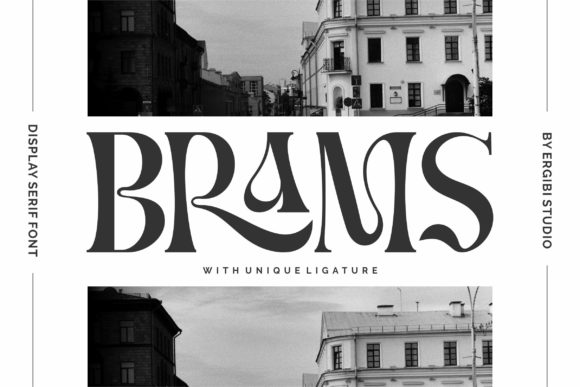
Brams Font: Elevate Your Designs with this Cool Display Font
In the world of typography, fonts play a crucial role in conveying messages, expressing emotions, and creating visual identities. Among the numerous fonts available, Brams Font stands out as a cool display font that can add a touch of elegance and sophistication to any design project. In this article, we’ll explore the features, benefits, and uses of Brams Font, and why it’s an excellent addition to your font library.
What makes Brams Font unique?
Brams Font is a display font that boasts characters that dance along the baseline, creating a sense of movement and fluidity. This distinctive feature sets it apart from other fonts and makes it perfect for designs that require a touch of whimsy and playfulness. The font’s unique character design ensures that it can be used for a wide range of projects, from branding and advertising to packaging and digital media.
PUA Encoding: Easy access to glyphs and swashes
Brams Font is PUA (Private Use Area) encoded, which means that you can access all the glyphs and swashes with ease. PUA encoding allows designers to access additional characters and glyphs that are not available in standard fonts. This feature makes it easy to customize your designs and add unique touches to your text.
Why choose Brams Font?
Brams Font is an incredibly versatile font that can be used for various design projects. Here are some benefits of using Brams Font:
- Elegance and sophistication: Brams Font adds a touch of elegance and sophistication to any design project, making it perfect for luxury brands, high-end products, and creative agencies.
- Flexibility: The font’s unique character design and PUA encoding make it suitable for a wide range of projects, from digital media to print materials.
- High-quality design: The font is designed with high-quality craftsmanship, ensuring that it looks great in any design project.
How to use Brams Font in your designs
Brams Font is a versatile font that can be used in various design projects. Here are some ideas on how to use Brams Font:
- Branding and logos: Use Brams Font to create unique and memorable logos that reflect your brand’s personality.
- Advertising and marketing: The font’s elegant and sophisticated design makes it perfect for advertising and marketing campaigns.
- Packaging design: Add a touch of elegance to your packaging designs with Brams Font.
- Digital media: Use Brams Font in your digital media projects, such as social media graphics, website headers, and video titles.
Tips and tricks for using Brams Font
Here are some tips and tricks for getting the most out of Brams Font:
- Experiment with font sizes: Brams Font looks great in various font sizes, so experiment with different sizes to find the one that works best for your design.
- Play with glyphs and swashes: Use the font’s PUA encoding to access additional glyphs and swashes, and add unique touches to your text.
- Pair with other fonts: Brams Font pairs well with other fonts, so experiment with different font combinations to create visually appealing designs.
In conclusion, Brams Font is a cool display font that can elevate any design project with its unique character design and PUA encoding. Its elegance, sophistication, and versatility make it an excellent addition to your font library. Whether you’re a designer, artist, or entrepreneur, Brams Font is a great choice for anyone looking to add a touch of whimsy and playfulness to their designs.